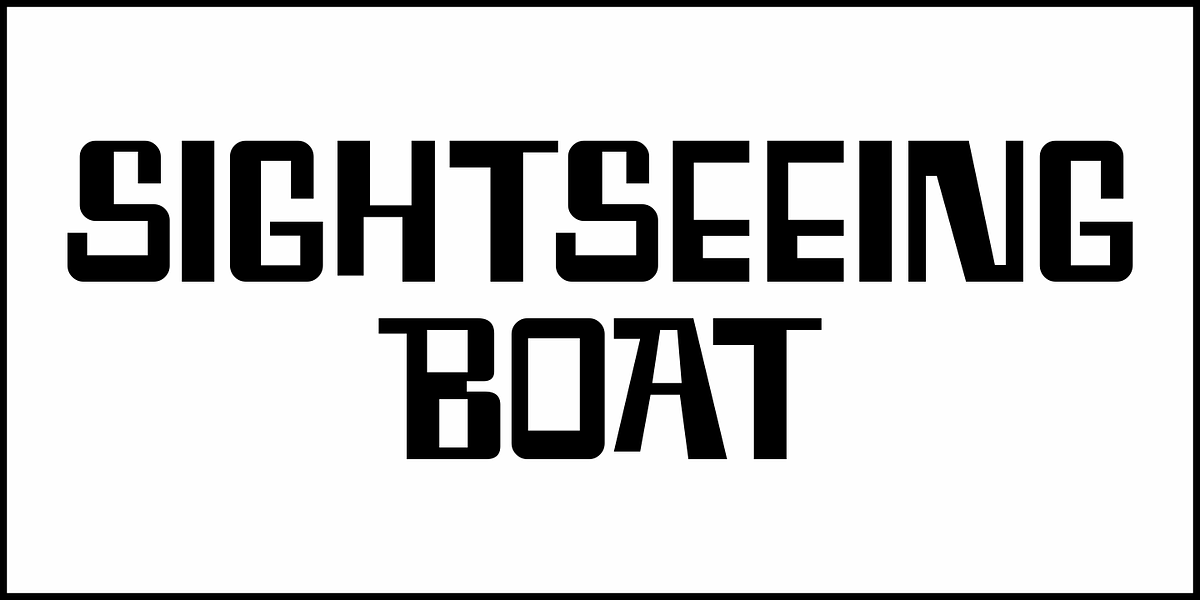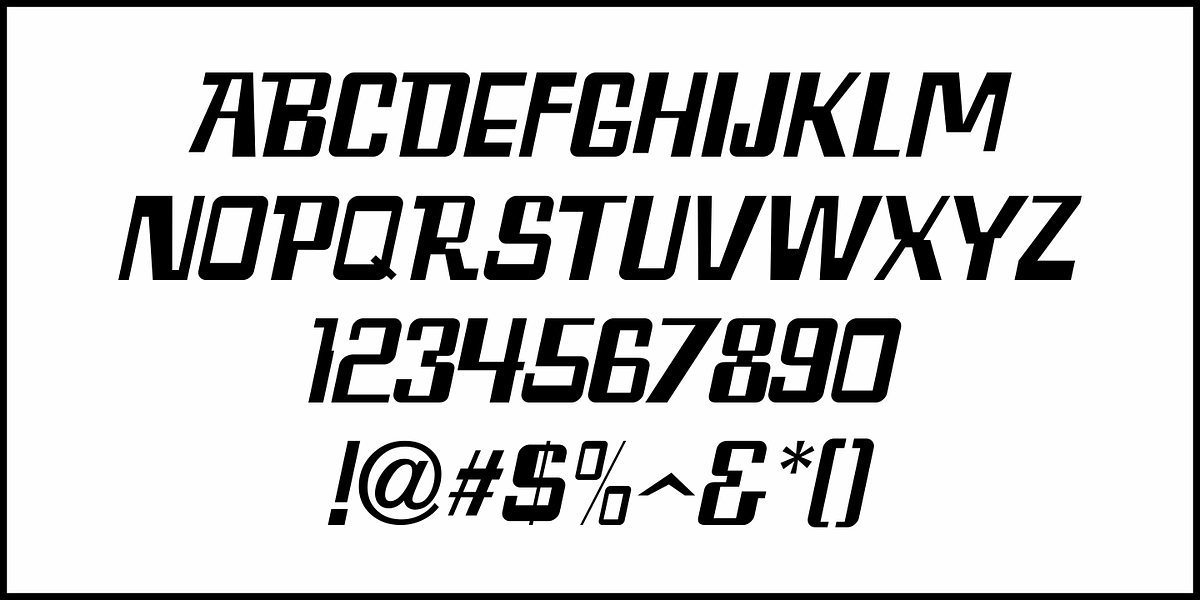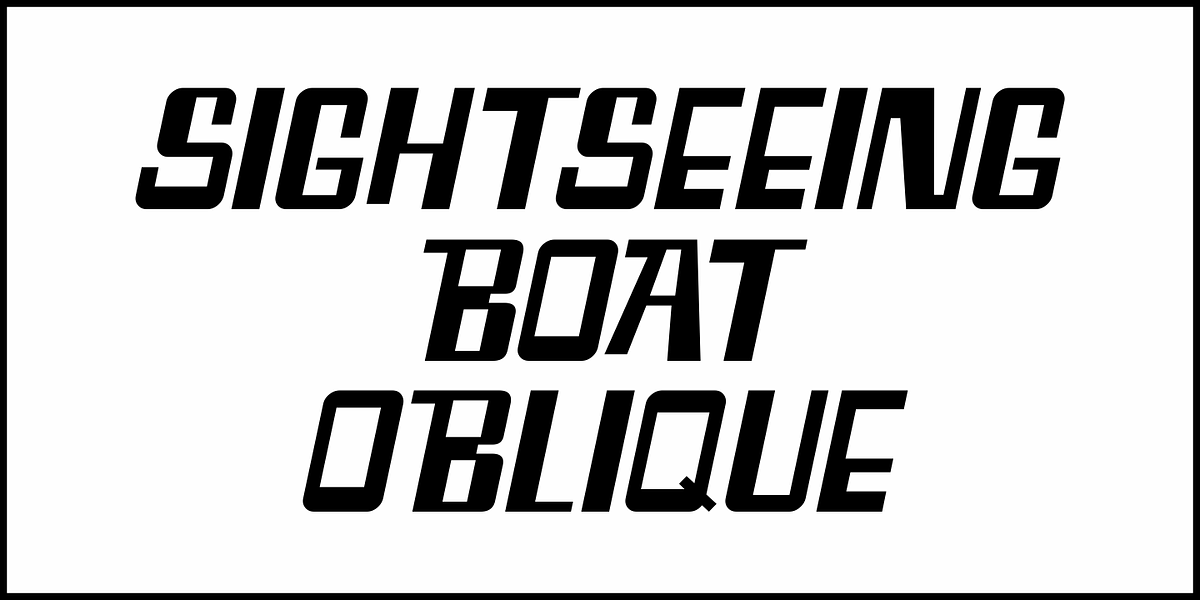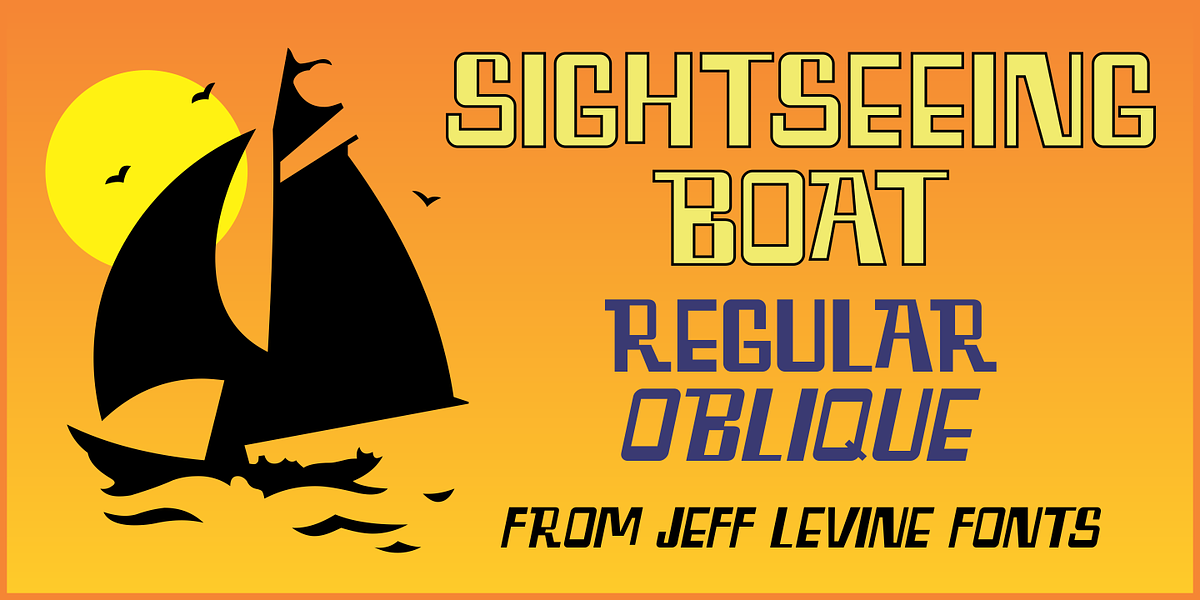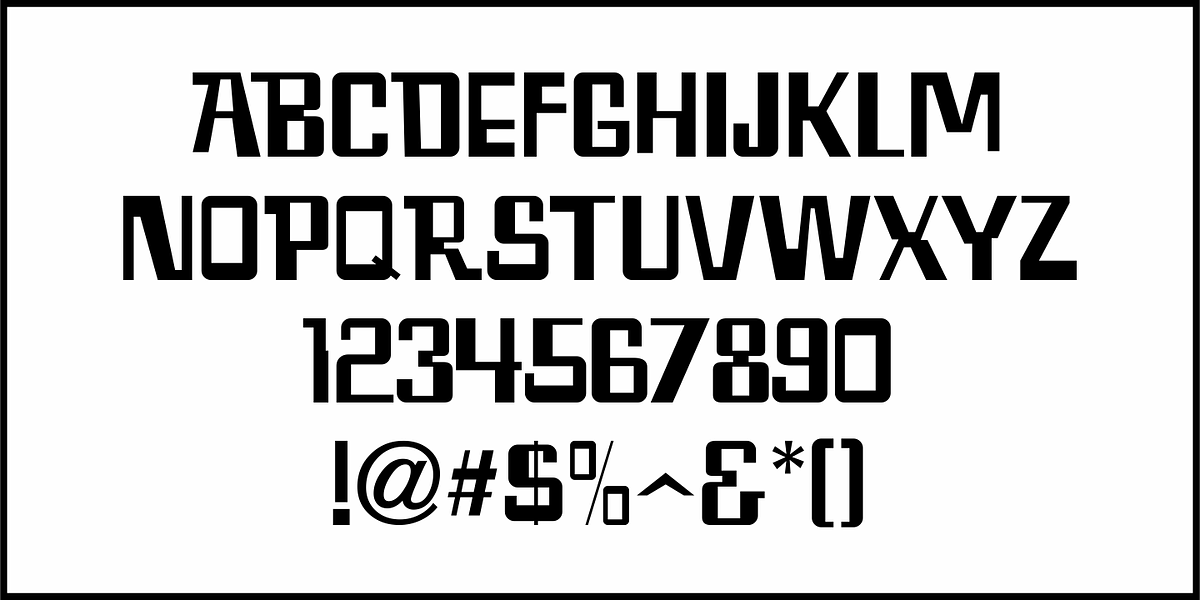
Sightseeing Boat JNL
The free form hand lettering comprising the titles and credits for the 1966 romantic comedy “The Glass Bottom Boat” were the model for Sightseeing Boat JNL, which is available in both regular and oblique versions.